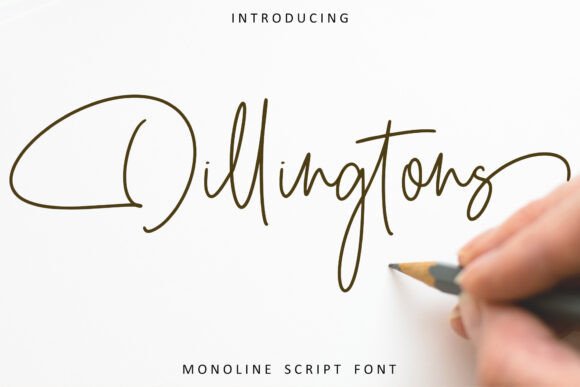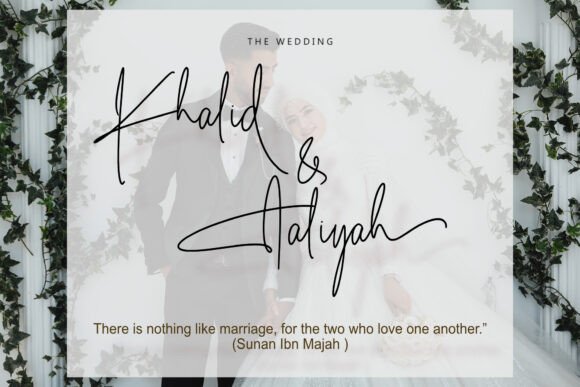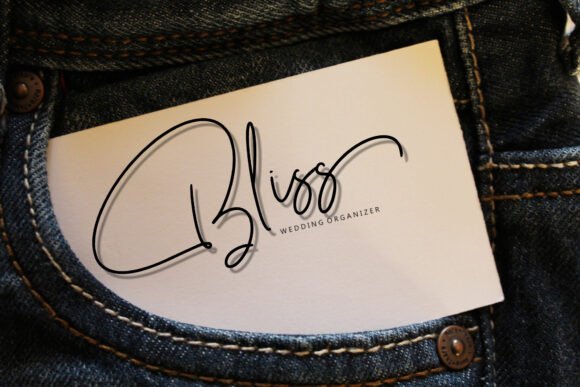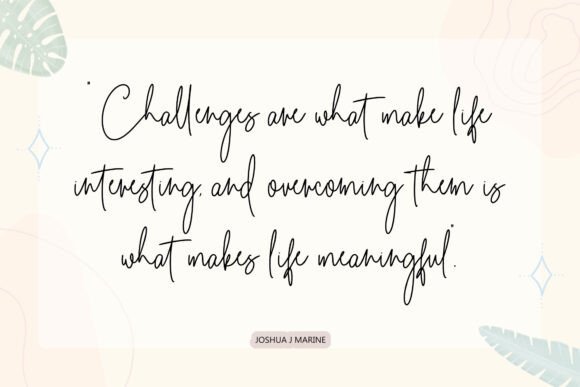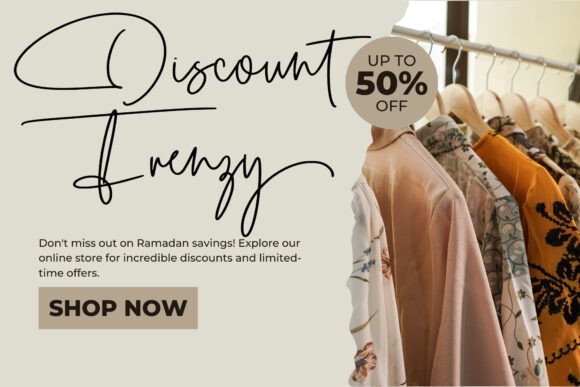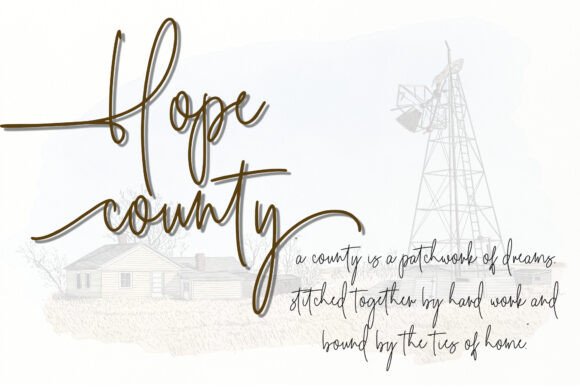
Dillingtons Font: Elevate Your Designs with Elegance and Sophistication
In the world of typography, few fonts manage to strike a balance between elegance and modern sophistication as effortlessly as Dillingtons. This beautifully crafted monoline script font has been turning heads with its smooth, flowing letterforms that add a personal touch to any design. Whether you’re a seasoned designer or a crafty DIY enthusiast, Dillingtons is a versatile and stylish choice that can elevate your projects to new heights.
The Art of Monoline Script
Dillingtons boasts a stunning monoline script style, characterized by its smooth, continuous lines that flow seamlessly from one letter to the next. This style of script is renowned for its elegance and sophistication, making it a popular choice for designs that require a touch of refinement. The monoline approach also lends itself well to modern design sensibilities, ensuring that your projects look fresh and contemporary.
A Wealth of Ligatures and Swash Alternates
One of the standout features of Dillingtons is its extensive collection of over 50 ligatures. These special character combinations allow your text to flow naturally and creatively, adding a level of sophistication and polish to your designs. The ligatures in Dillingtons are thoughtfully crafted to ensure that your text reads smoothly, while also providing a unique and eye-catching aesthetic.
In addition to its impressive ligature collection, Dillingtons also features a range of swash alternates. These provide you with the freedom to customize each letter, giving your designs a truly unique look. The swash alternates in Dillingtons are perfect for adding a touch of personality to your projects, whether you’re designing a logo, invitation, or branding materials.
With Dillingtons, the design possibilities are endless. This versatile font is suitable for a wide range of projects, including:
- Logos: Create a lasting impression with a custom logo that showcases your brand’s personality and style.
- Invitations: Add a touch of elegance to your wedding invitations, party invites, or any other special occasion.
- Branding: Establish a consistent brand identity with Dillingtons, perfect for packaging, advertising, and more.
- Print and Digital Projects: Use Dillingtons to add a touch of sophistication to your brochures, flyers, posters, and digital designs.
Why Choose Dillingtons?
So why choose Dillingtons for your next design project? Here are just a few reasons:
- Elegance: Dillingtons exudes elegance and sophistication, making it perfect for designs that require a touch of refinement.
- Versatility: With its extensive ligature collection and swash alternates, Dillingtons offers endless design possibilities.
- Modern Sophistication: Dillingtons blends traditional script styles with modern design sensibilities, ensuring your projects look fresh and contemporary.
- Easy to Use: Dillingtons is designed to be easy to use, even for those new to script fonts.
In conclusion, Dillingtons is a beautifully crafted monoline script font that offers a unique blend of elegance and modern sophistication. With its smooth, flowing letterforms, extensive ligature collection, and swash alternates, Dillingtons is the perfect choice for designers and crafters looking to elevate their projects. Whether you’re designing a logo, invitation, or branding materials, Dillingtons is a versatile and stylish choice that is sure to impress.